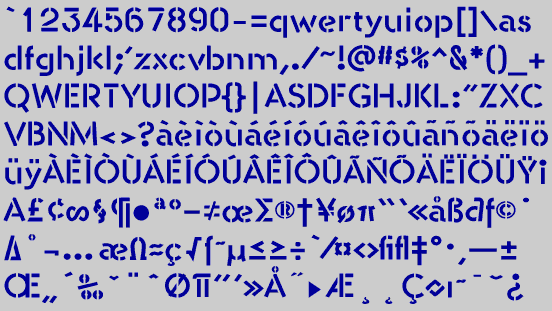
Stencil variations are fairly easy to do to existing fonts, but I discovered this fairly late (1995 as I was finishing up Font Pro 5) or else there would be a lot more of them on this CD.
The two AndrewAndyStencil fonts are based on previous fonts. Usually only upper-case letters are stenciled, but I have also stenciled the lower-case letters.